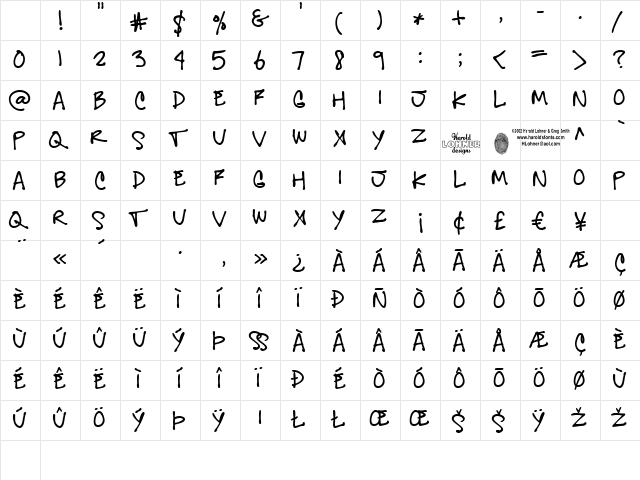
Gregs Other Hand Regular Free Font
Gregs Other Hand Regular
Design Context for Gregs Other Hand
Gregs Other Hand flows with the natural rhythm of handwritten lettering, making it ideal for designs that call for warmth and personal expression.
Font Pairing: Combine Gregs Other Hand with a simple geometric sans for maximum contrast - the tension between flowing curves and clean structure is a classic typographic pairing.
Pro Tip: Use Gregs Other Hand for short runs of text - names, titles, or taglines. Extended body copy in script faces tires the eye quickly.